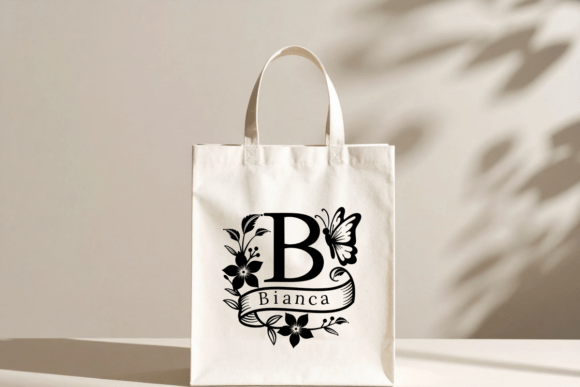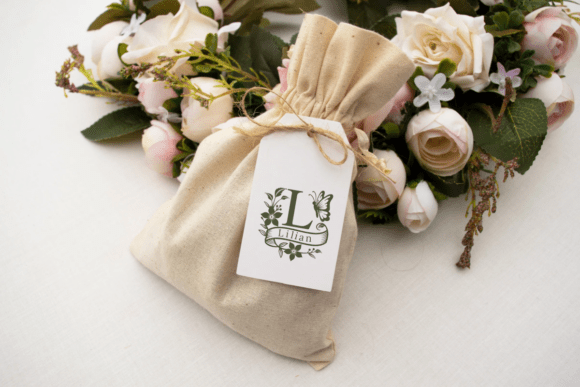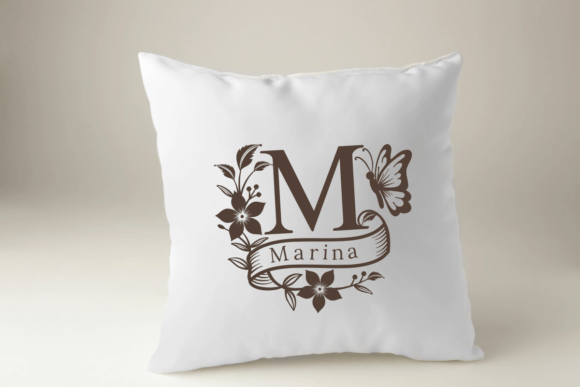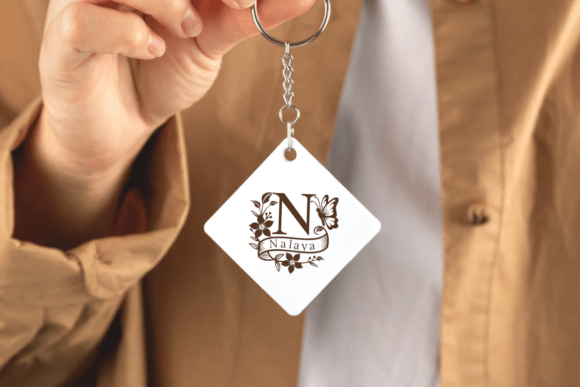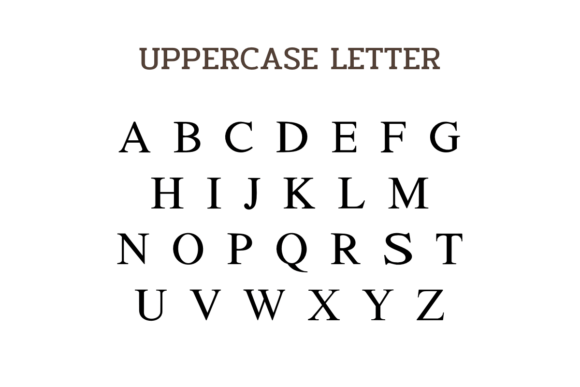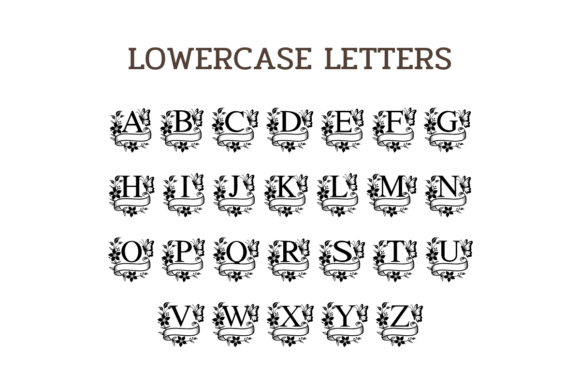
Aurelina Monogram Font
Aurelina is a beautifully ornate decorative font adorned with floral and butterfly accents. This font is perfect for creating elegant monograms, wedding invitations, branding, or logo design where a touch of vintage charm is desired. Each letter feels like a blooming garden, bringing nature-inspired sophistication to your designs.